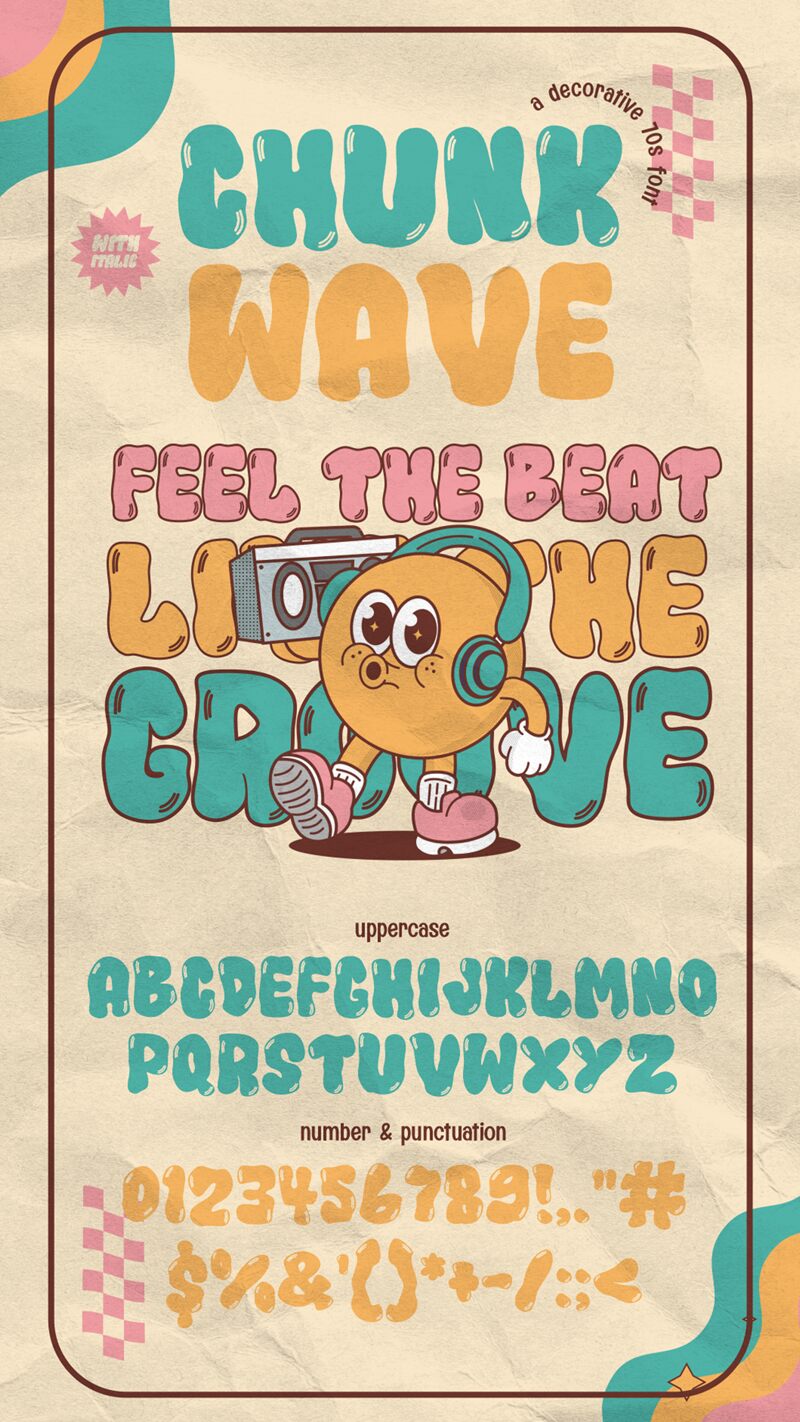
Chunk Wave font family is a free rounded and groovy typeface designed with the retro aesthetic in mind. Cikareotype Studio created the font with decorative elements in a vibrant 70s-inspired style and a charming and playful mood. It has pop culture influences secured by its dynamic and informal letters full of youthful energy.
In addition to headings, the font looks suitable for use in branding and advertising that evokes nostalgia. The groovy and eye-catching letters work well in logos, slogans, t-shirts, packaging, product design, and signage. Titles for films, documentaries, and books could utilize the font’s casual feel and expressive design. Websites, apps, and blogs related to art, community work, kids, or entertainment would also benefit.